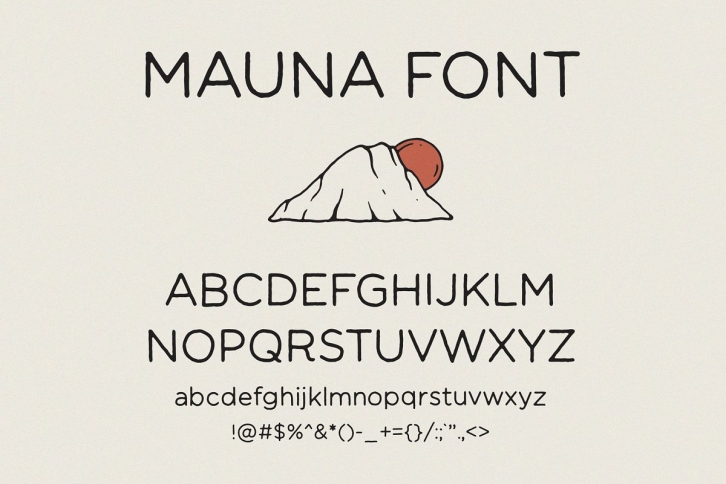
This font is simple and it has a hand drawn look. It can be used for large blocks of text. I created this font because it is very difficult to find a hand drawn font that contains both uppercase and lowercase letters. This font is perfect for both commercial and personal projects. The font is developed and built entirely by hand.